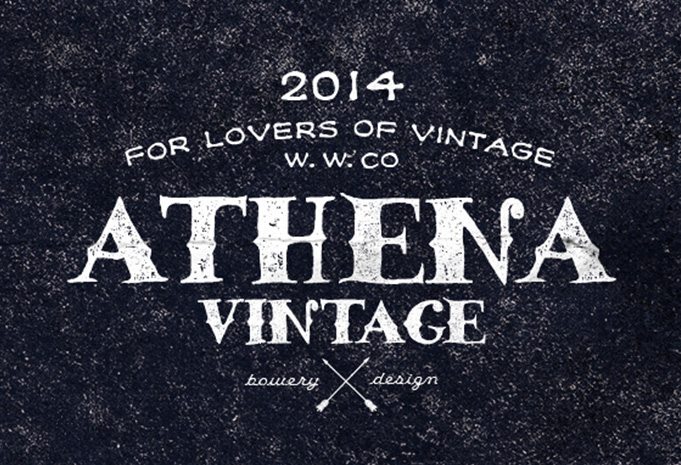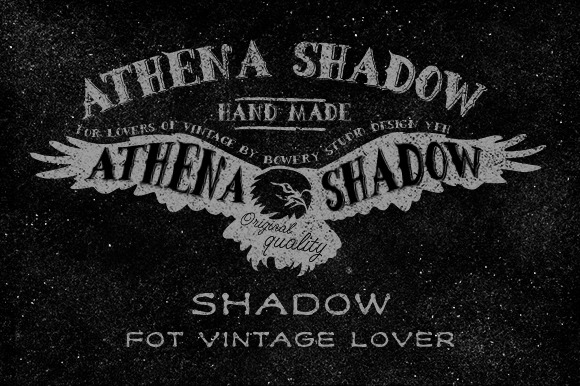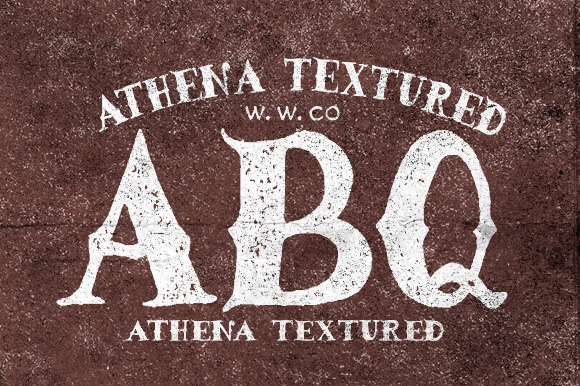
Athena vintage font is a hand made font family of 3 faces Outstanding hand written style will perfectly fit for headlines of all sizes, print graphics, logos, badges, t-shirts and other designs..
Athena regular Athena shadow Athena textured And free fonts will be great with Athena vintage font